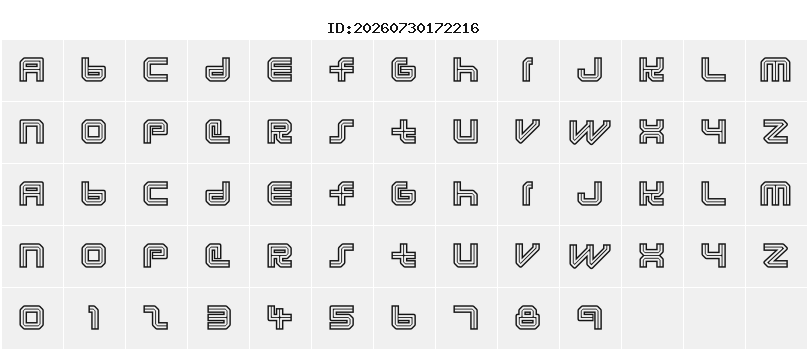
Lunaurora Preview
• Font Name: Lunaurora
• Full Font Name: Lunaurora
About Lunaurora.ttf
Lunaurora.ttf is a modern, elegant sans-serif font designed for ultimate readability and visual harmony. Perfect for branding, headlines, web design, and print materials.